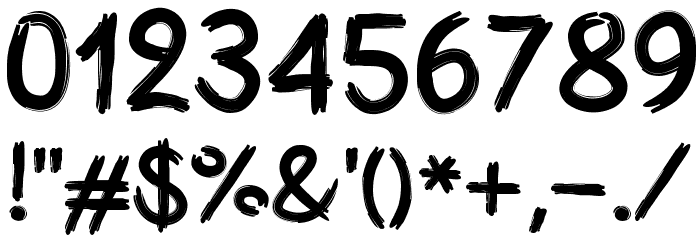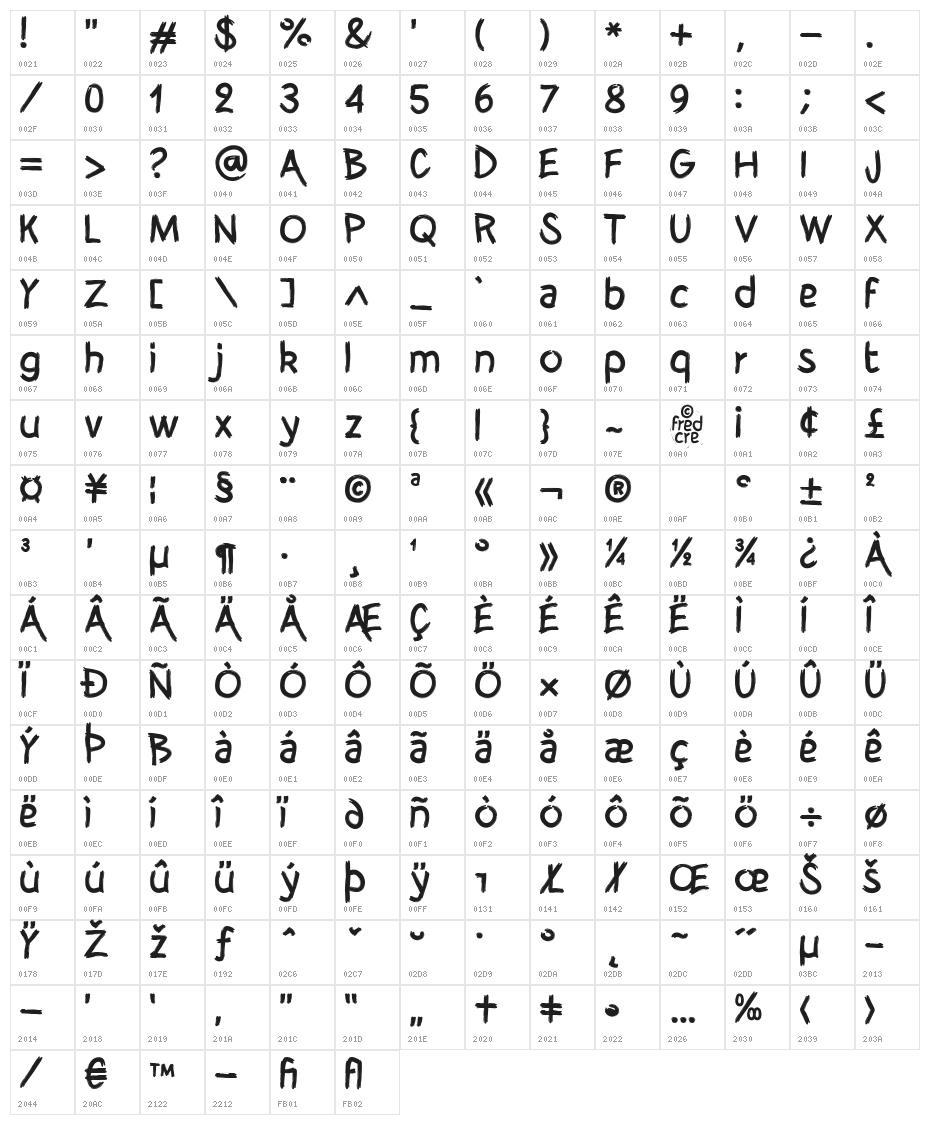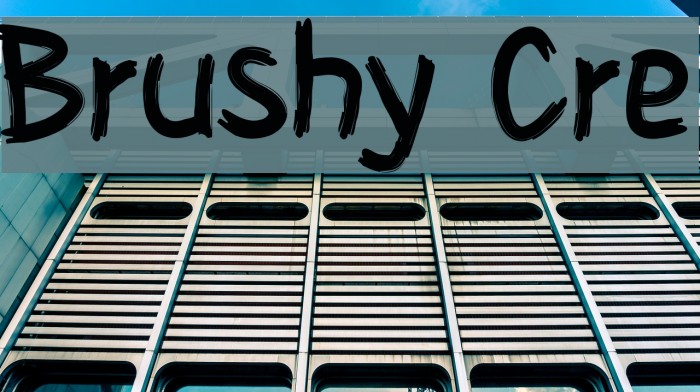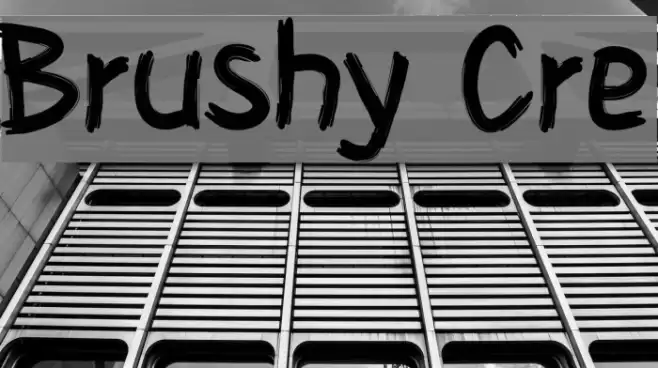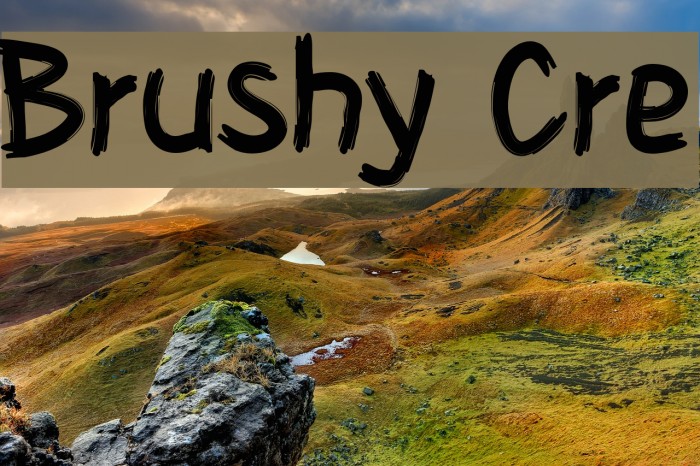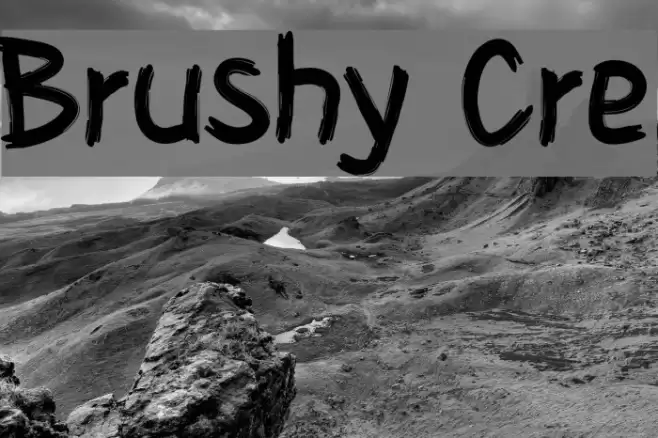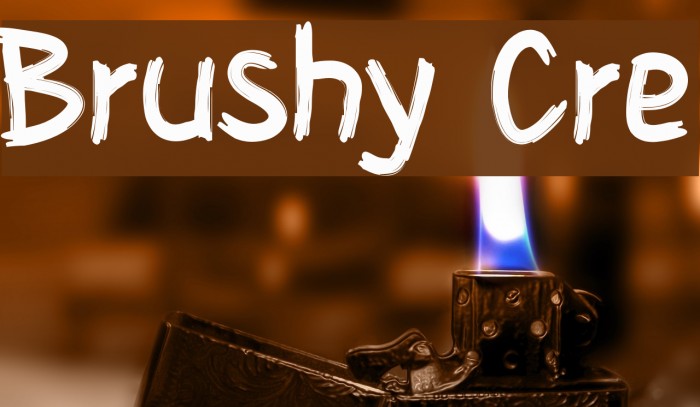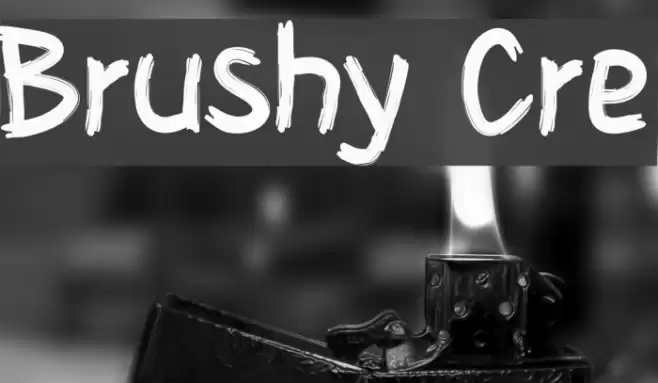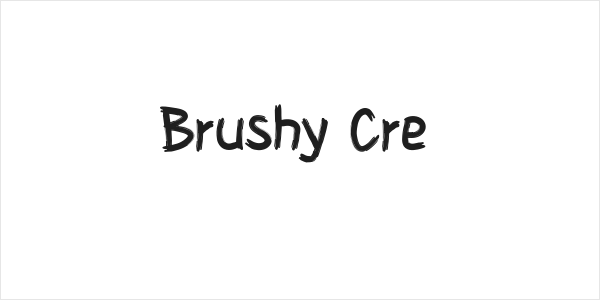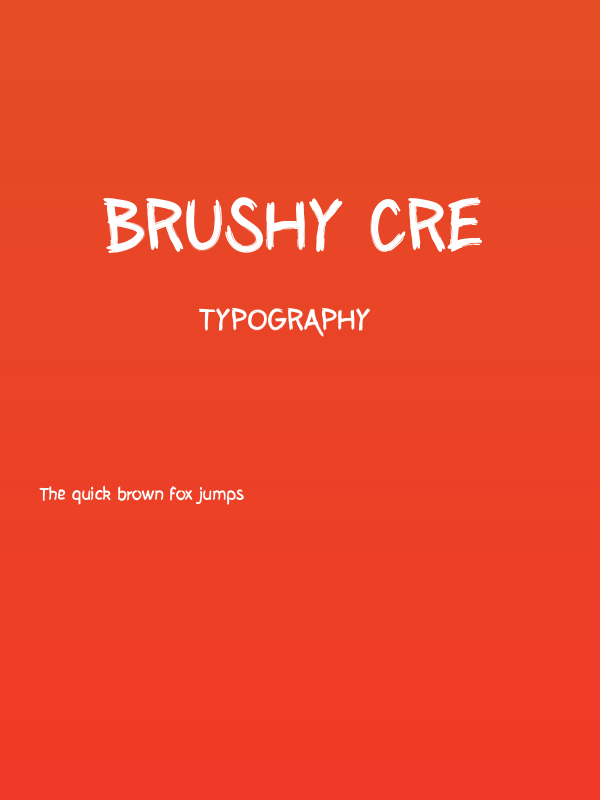
Brushy Cre Font
Brushy Cre Description
This font showcases a bold, expressive style reminiscent of brush strokes, giving it a dynamic and artistic appearance. The characters are uneven and organic, with varying thicknesses that suggest a hand-painted look. The uppercase and lowercase letters maintain a consistent style, with a playful yet sophisticated flair. Numbers and special characters follow the same design ethos, ensuring a cohesive visual experience. The font's unique character makes it suitable for creative projects that require a personal touch.
| Proposed Projects | Ideal for branding, posters, invitations, and any project that benefits from a handcrafted, artistic touch. |